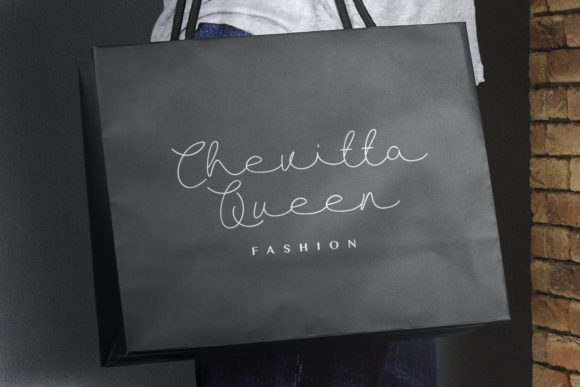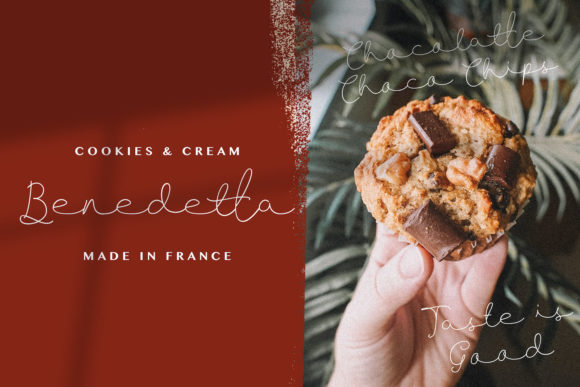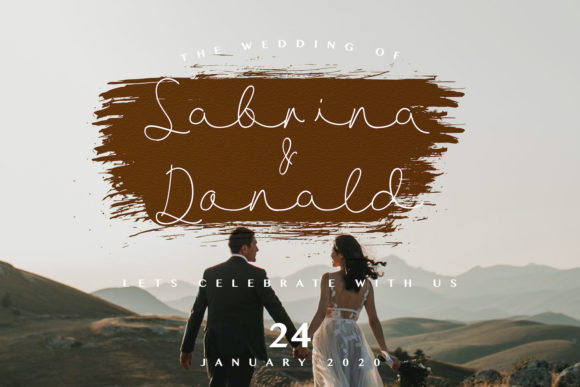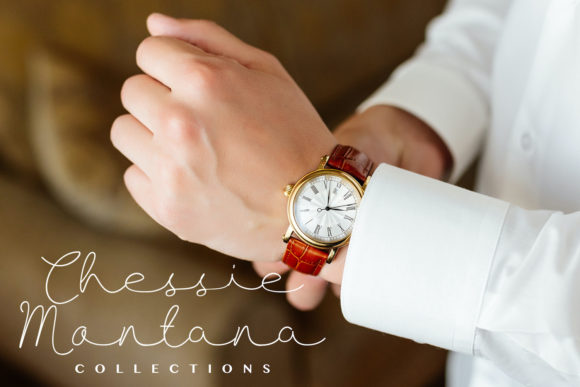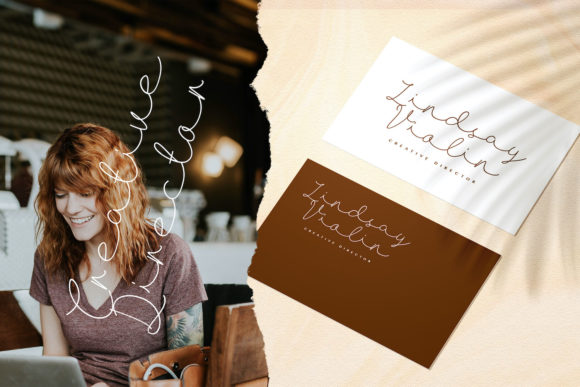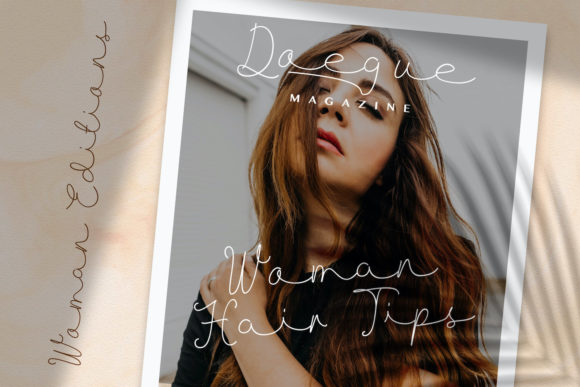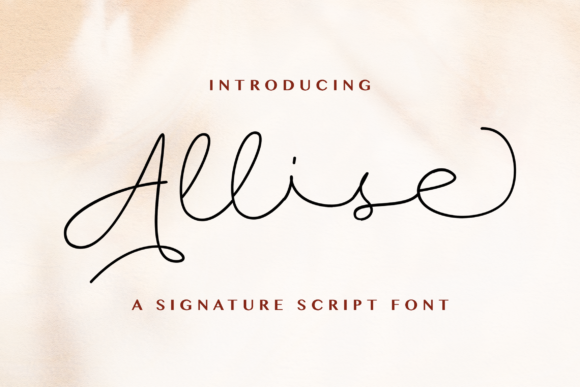
Discover the Elegance of Allise Font: A Delicate Handwritten Masterpiece
Are you a designer or crafter looking for a font that exudes elegance and sophistication? Look no further than the Allise Font, a delicate and beautifully designed handwritten font that is sure to capture your heart. With its well-rounded letters and distinct style, Allise is a masterpiece that can elevate your designs to new heights.
Handwritten fonts have a unique charm that can add a personal touch to any design. They evoke a sense of warmth, creativity, and human connection that is often lost in digital fonts. Allise Font is a perfect example of a handwritten font that has been crafted with love and care to bring out the best in your designs.
What Makes Allise Font Special?
Allise Font is a standout font that boasts a range of features that make it a must-have for designers and crafters. Here are some of its key characteristics:
- Delicate and Elegant: Allise Font is a delicate and elegant font that is perfect for designs that require a touch of sophistication.
- Handwritten Style: The font has a beautiful handwritten style that gives it a personal and unique touch.
- Well-Rounded Letters: The letters in Allise Font are well-rounded and carefully crafted to create a smooth and flowing look.
- Distinct Style: Allise Font has a distinct style that sets it apart from other fonts, making it perfect for designers who want to create unique and eye-catching designs.
Using Allise Font in Your Designs
Allise Font is a versatile font that can be used in a range of designs, from wedding invitations and stationery to branding and packaging. Here are some ideas for using Allise Font in your designs:
- Wedding Invitations: Use Allise Font to create beautiful and elegant wedding invitations that set the tone for a special day.
- Branding and Packaging: Add a touch of elegance to your brand with Allise Font, perfect for luxury brands, beauty products, and high-end services.
- Stationery: Create gorgeous stationery, including notebooks, journals, and greeting cards, with Allise Font.
- Digital Designs: Use Allise Font in your digital designs, including social media graphics, blog posts, and website headers.
Tips for Working with Allise Font
Here are some tips for getting the most out of Allise Font:
- Pair with Other Fonts: Experiment with pairing Allise Font with other fonts to create a unique and eye-catching look.
- Use in Combination with Images: Combine Allise Font with beautiful images to create stunning designs that tell a story.
- Experiment with Colors: Try out different colors and textures with Allise Font to add depth and interest to your designs.
In conclusion, Allise Font is a delicate and beautifully designed handwritten font that is sure to capture your heart. With its elegant and well-rounded letters, distinct style, and versatility, Allise Font is a masterpiece that can elevate your designs to new heights. Whether you’re a designer or crafter, Allise Font is a must-have in your font collection. So why wait? Fall in love with Allise Font and use it to create spectacular designs that leave a lasting impression!